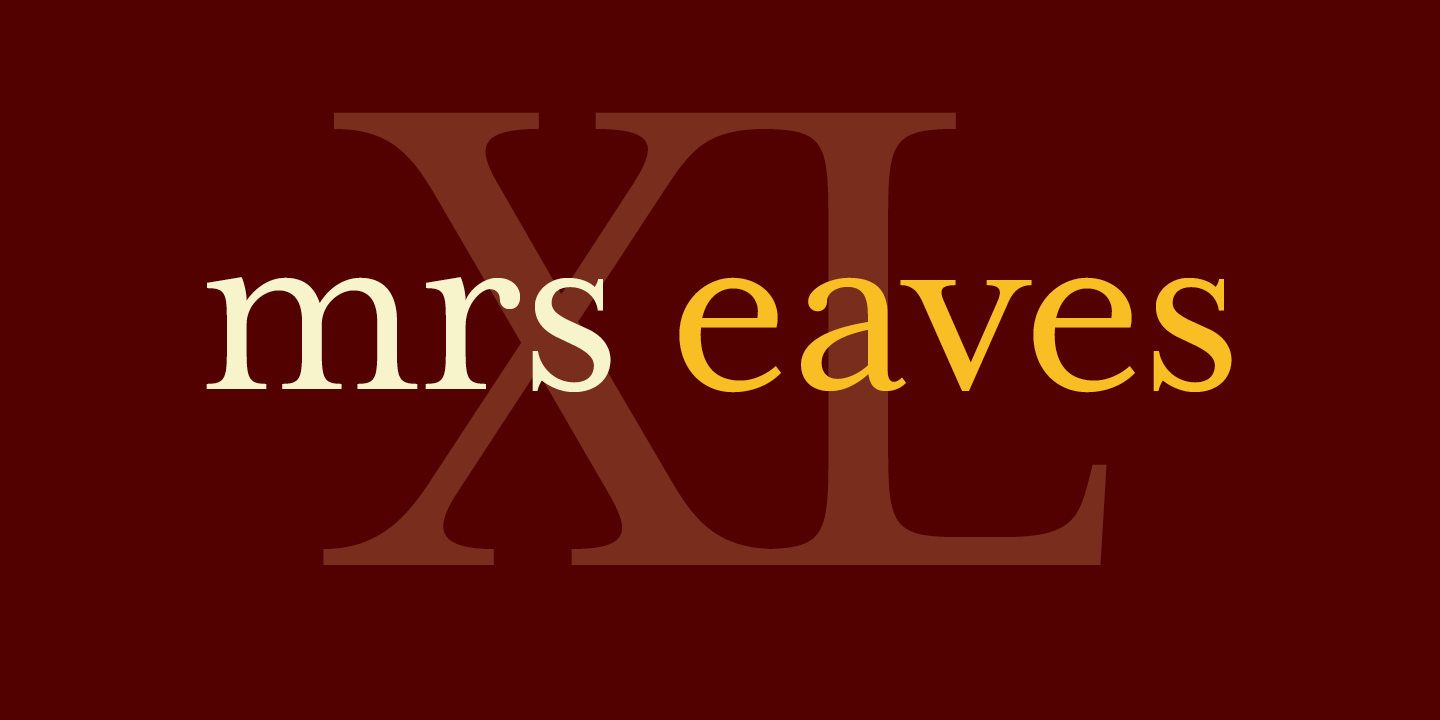
Mrs Eaves XL Serif Font Free Download is a refined and elegant serif typeface perfect for editorial design, book covers, branding, invitations, and luxury packaging. Its timeless style and delicate curves bring sophistication and readability to any project.
What makes this font so exciting is its classic inspiration combined with modern design principles, resulting in a typeface that feels both traditional and fresh. Mrs Eaves XL Serif Font adds a touch of grace and professionalism.
Mrs Eaves XL Serif Font includes multiple weights such as Regular, Italic, and Bold, giving designers the flexibility to create rich and expressive typographic hierarchies.
Elevate your creative projects with the polished and stylish look of Mrs Eaves XL Serif Font Free Download, and let your designs shine with timeless elegance.